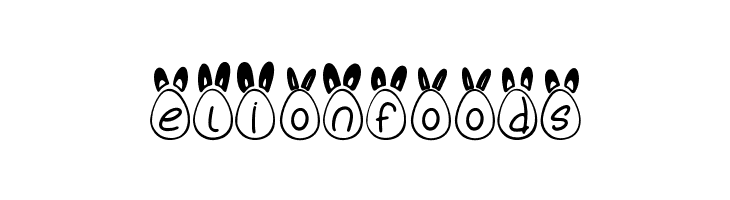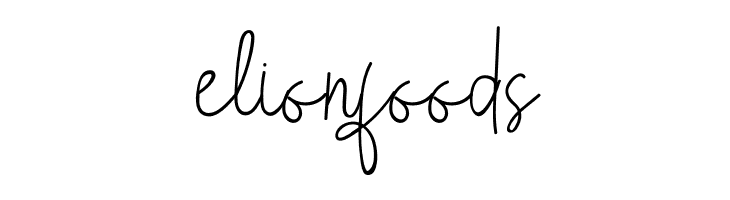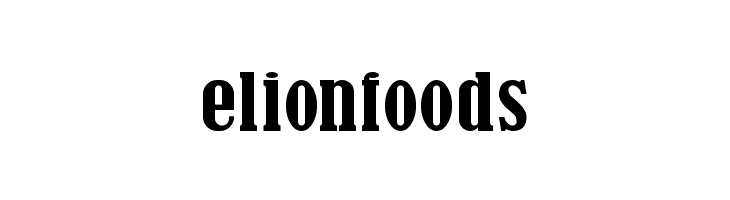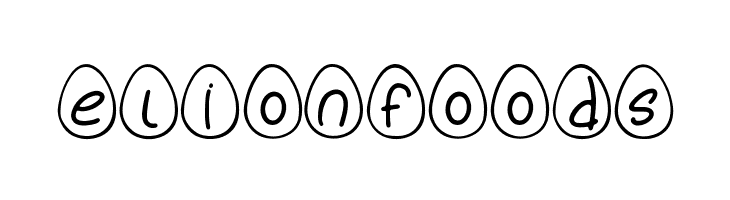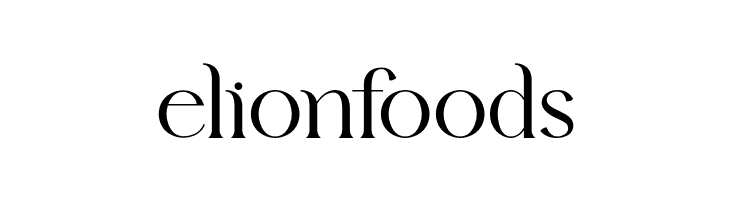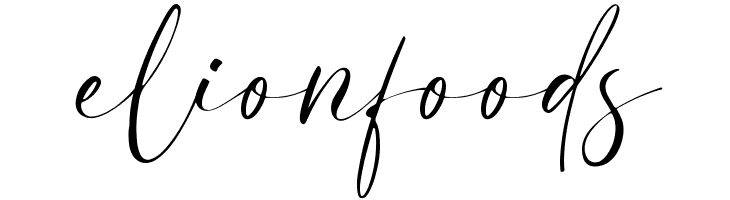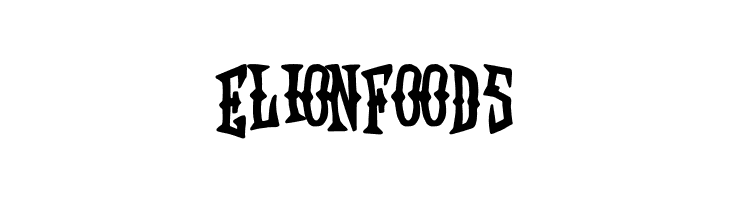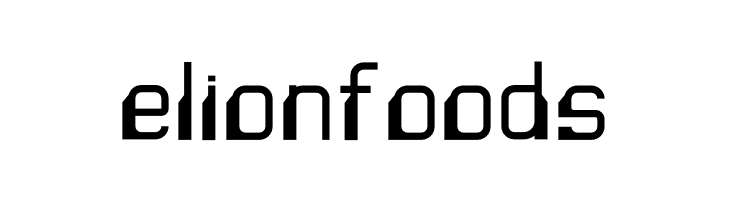
A bold, edgy font with sharp angles and a futuristic style.
A bold, dramatic script font with sharp, angular strokes and a calligraphic flair.
( Fonts by Douglas Vitkauskas )
A bold, expressive script font with elegant curves and dynamic flow.
A pixelated, retro-style font with a blocky, grid-like design.
( Fonts by Tokopress )
A bold, playful font with a whimsical, cartoon-like style.
( Fonts by eknoji studio )
A playful, bubbly font with a cartoonish, bold style.
A bold, playful font with rounded, thick strokes and a hand-drawn feel.
A bold, geometric font with strong, angular lines and a modern look.
( Fonts by Tigadestd )
A playful, bold, and hand-drawn font with a whimsical and informal style.
A playful, hand-drawn font with continuous lines and rounded edges.
A modern, geometric sans-serif font with clean lines and balanced proportions.
( Fonts by twinletter )
A bold, playful font with a whimsical and friendly style.
( Fonts by Muhammad Afif )
A bold, playful font with thick, rounded strokes and a whimsical, hand-drawn aesthetic.
A bold, handwritten script font with a playful and energetic style.
A playful, casual font with rounded edges and a handwritten style.
A bold, playful handwritten font with rounded, irregular letterforms.
( Fonts by ManekaDesign )
A playful and dynamic font with wavy, irregular letterforms.
A classic serif font with high contrast and elegant strokes.
A flowing, cursive font with interconnected characters and a sophisticated style.
A bold, modern sans-serif font with clean lines and strong presence.
( Fonts by Tokokoo Studio )
A bold, graffiti-inspired font with dynamic, hand-drawn characters.
A playful, handwritten script font with a whimsical and energetic style.
A bold, rounded font with a modern and friendly style.
A bold, brush-stroke font with a dynamic, hand-painted appearance.
A bold, playful handwritten font with thick strokes and rounded edges.
A playful and whimsical handwritten font with flowing curves and dynamic strokes.
A geometric, angular font with a modern, futuristic style.
A bold, geometric font with a modern, industrial style.
A geometric, outline font with a modern, futuristic style.
A charming and fluid script font with elegant, connected characters.